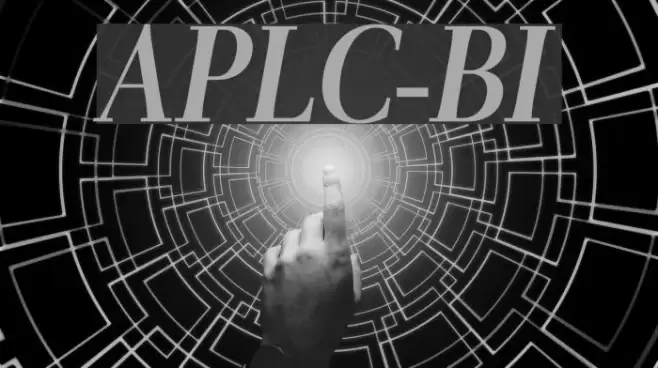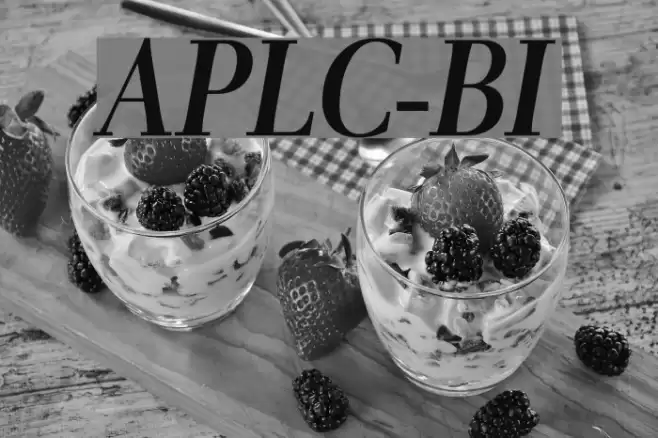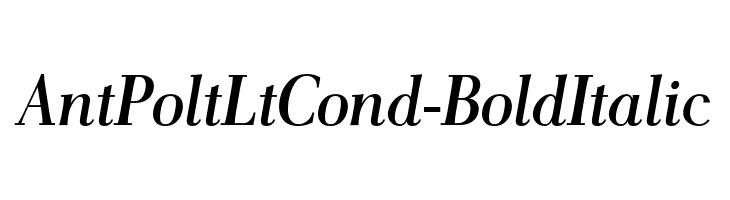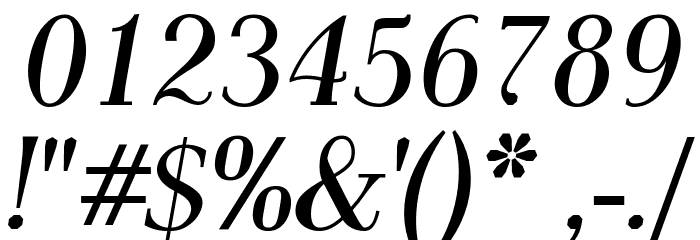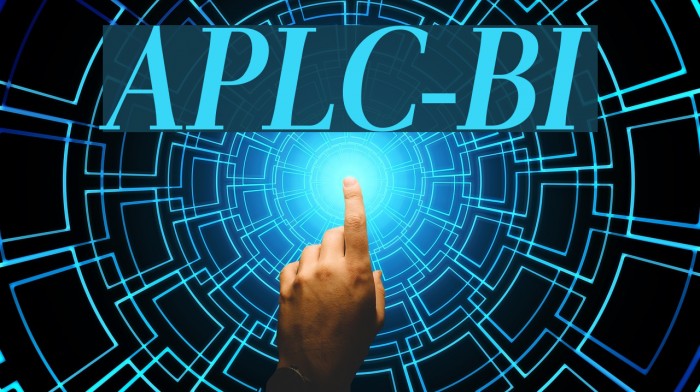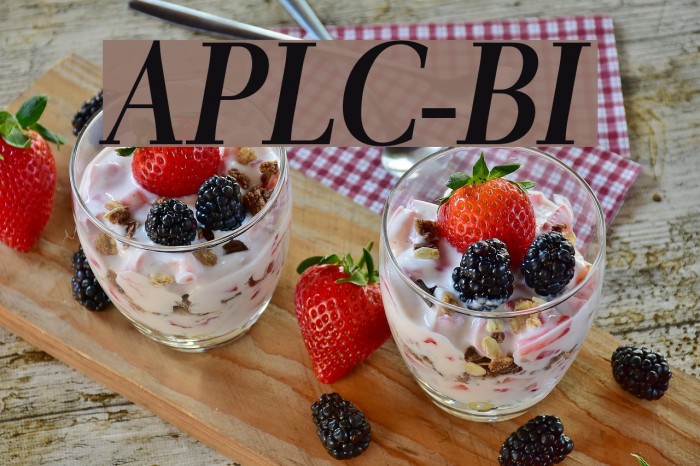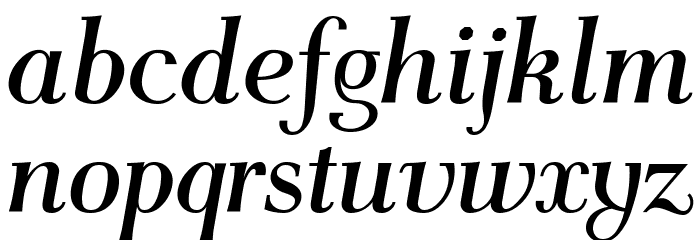
AntPoltLtCond-BoldItalic Font
AntPoltLtCond-BoldItalic Description
This font exhibits a refined and elegant style characterized by its italicized and bold appearance. The letters are slightly condensed, giving it a sophisticated and compact look. The serifs are pronounced yet delicate, adding a touch of classic elegance. The strokes vary in thickness, providing a medium contrast that enhances readability while maintaining a stylish flair. The numerals and special characters are designed with the same attention to detail, ensuring consistency across all glyphs. This font is versatile, suitable for both formal and creative applications.
An elegant, bold italic serif font with medium contrast and condensed width from Uncategorized fonts.
- Proposed Projects: Ideal for editorial design, luxury branding, wedding invitations, and high-end product packaging.
- Overall Style: Classic
- Use Case: Headlines, Logos, Editorial design